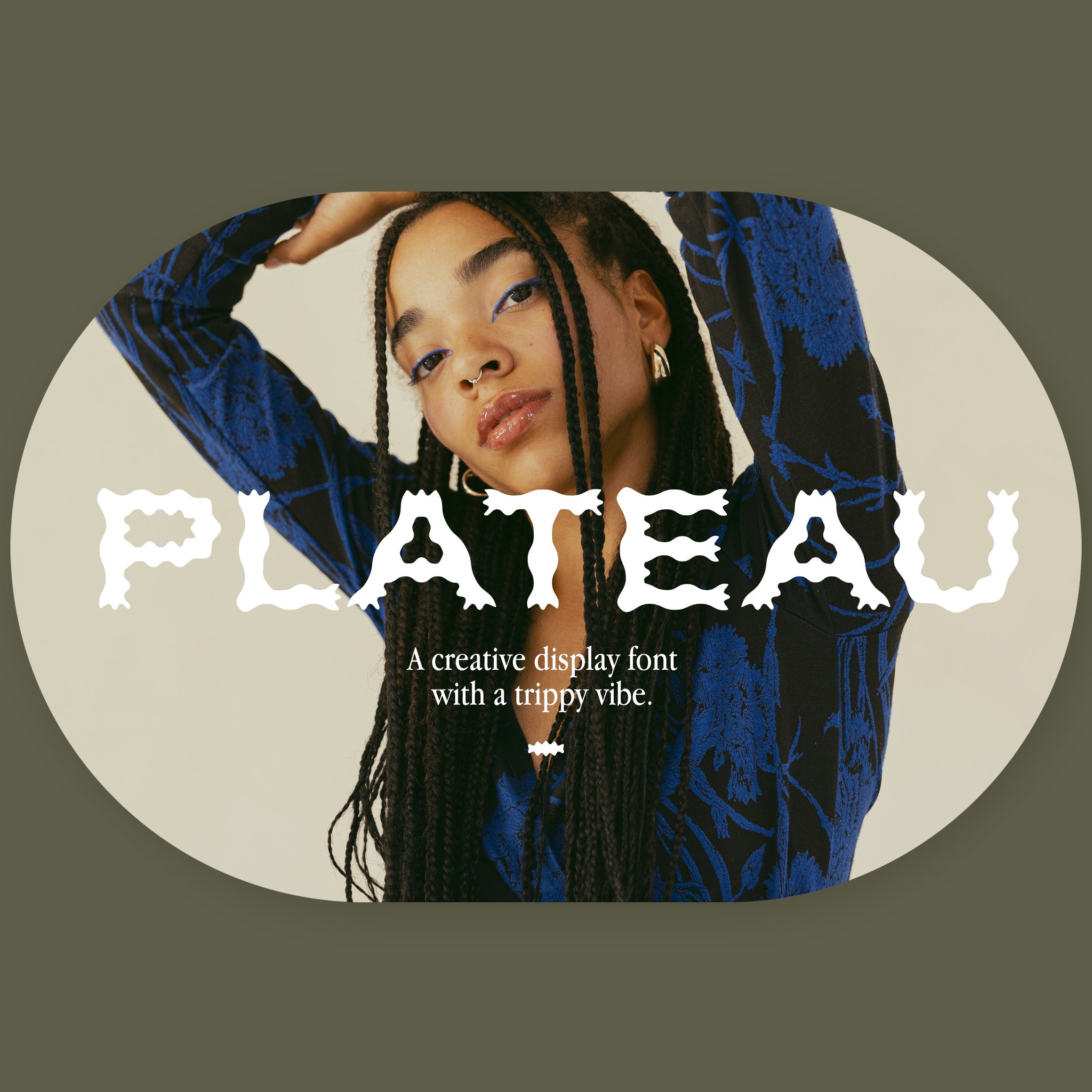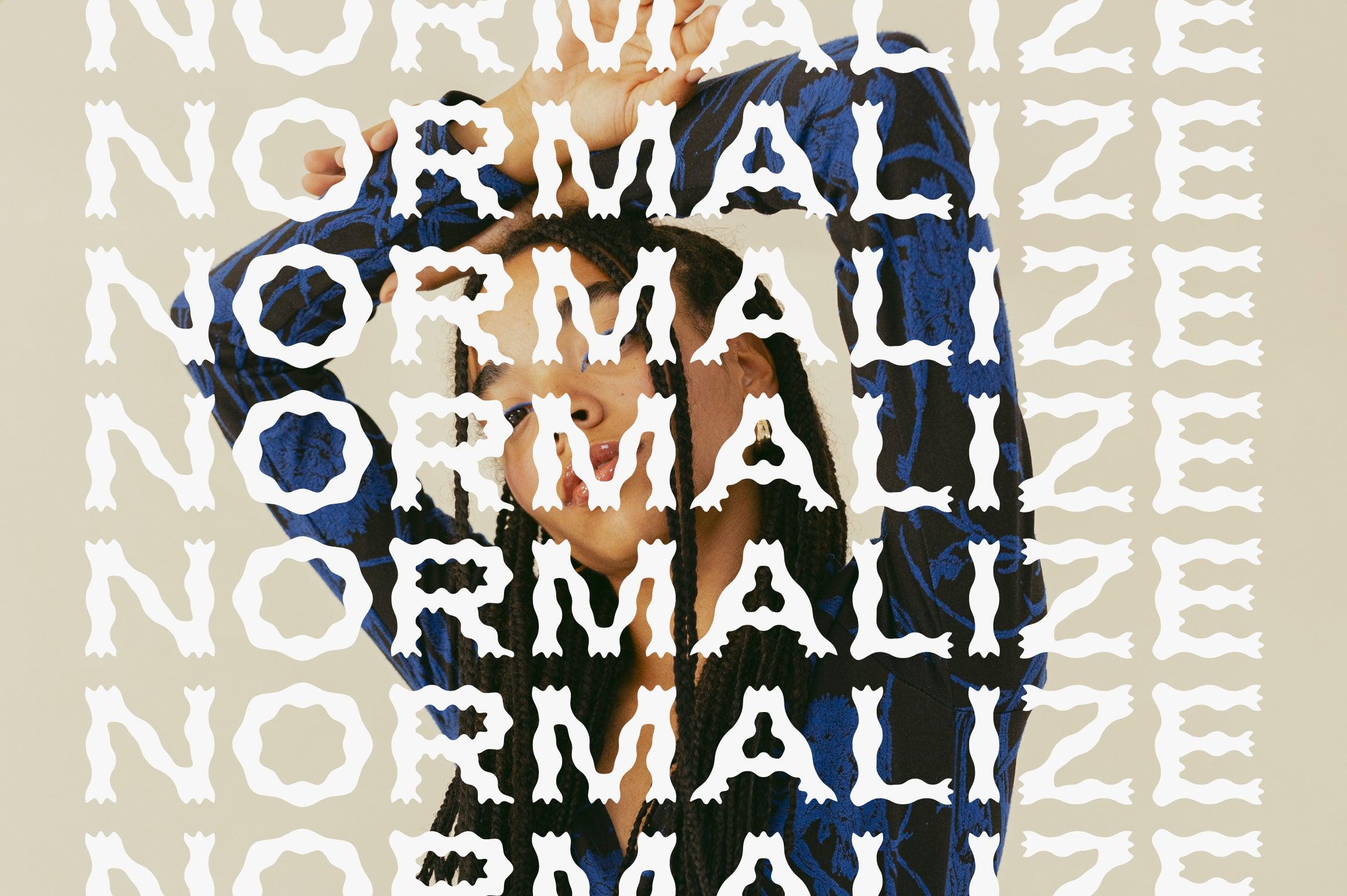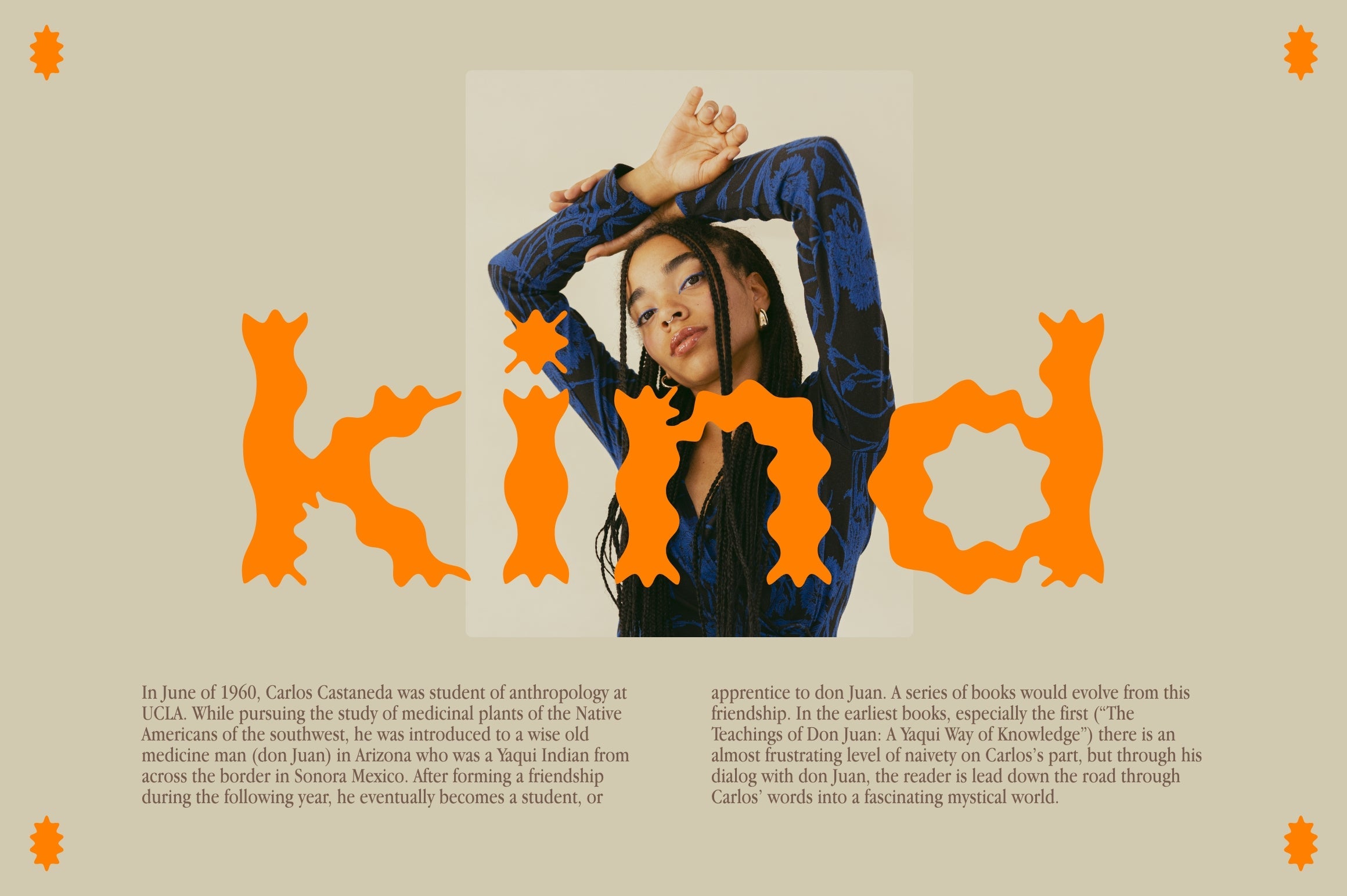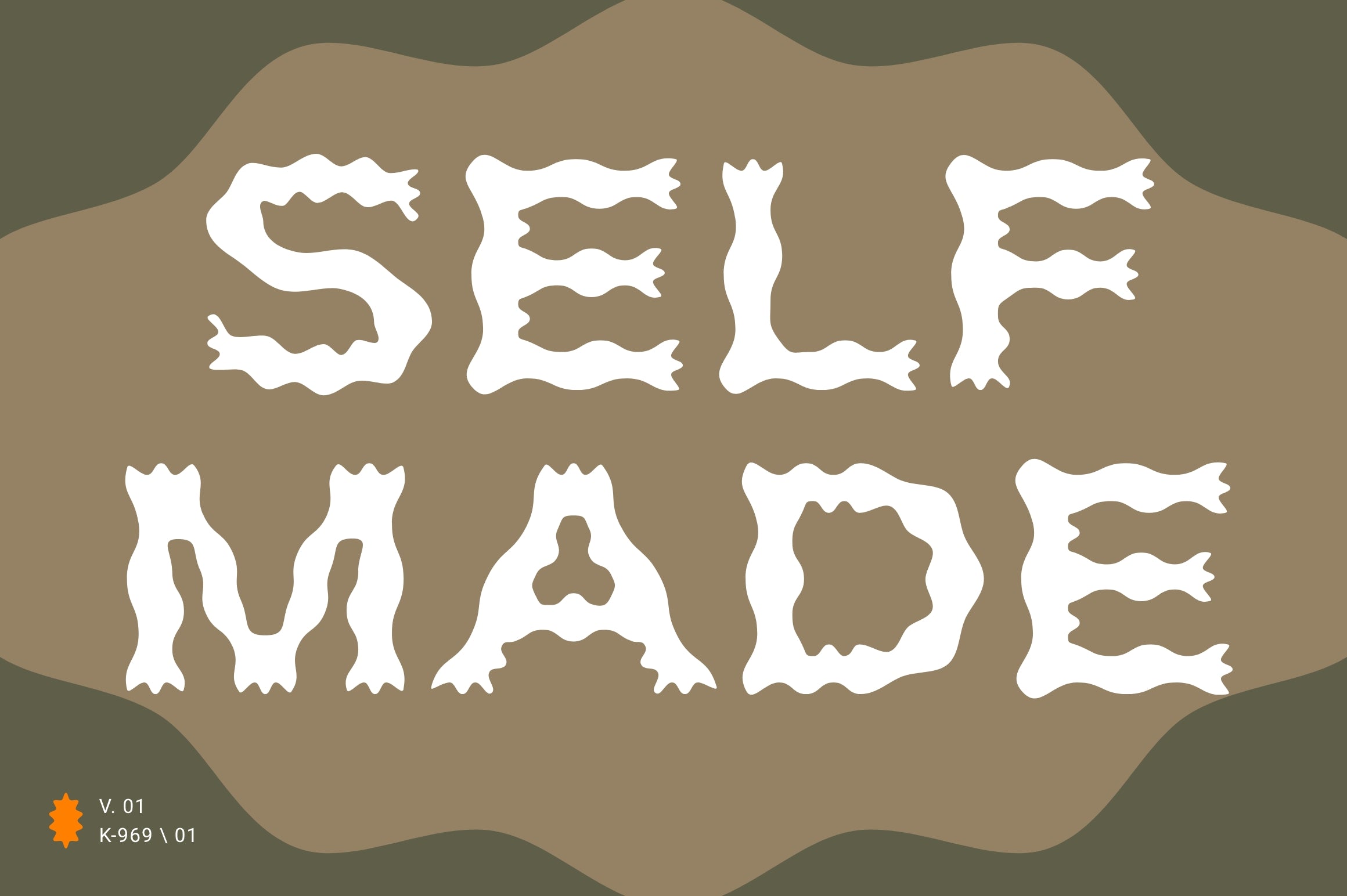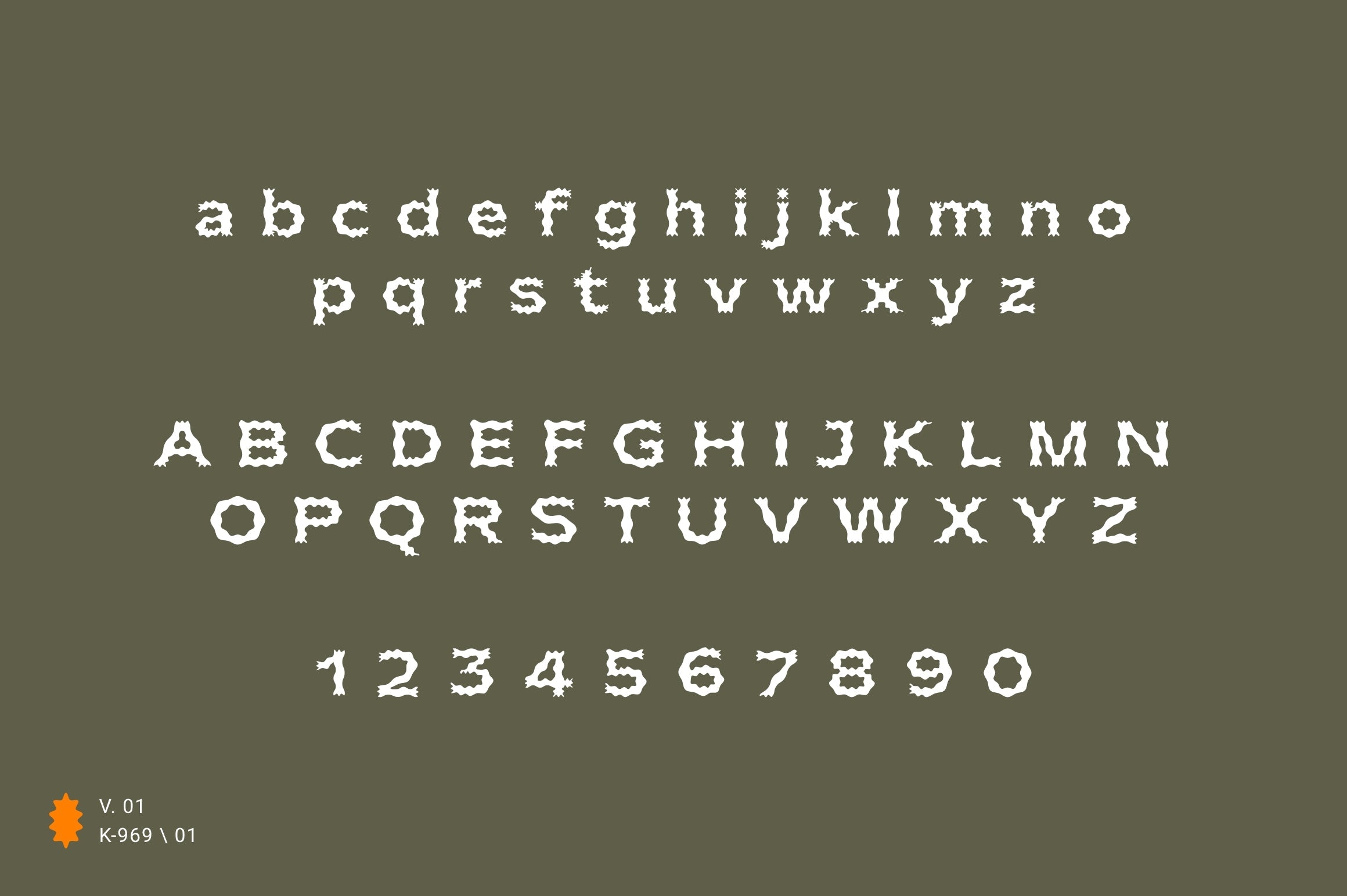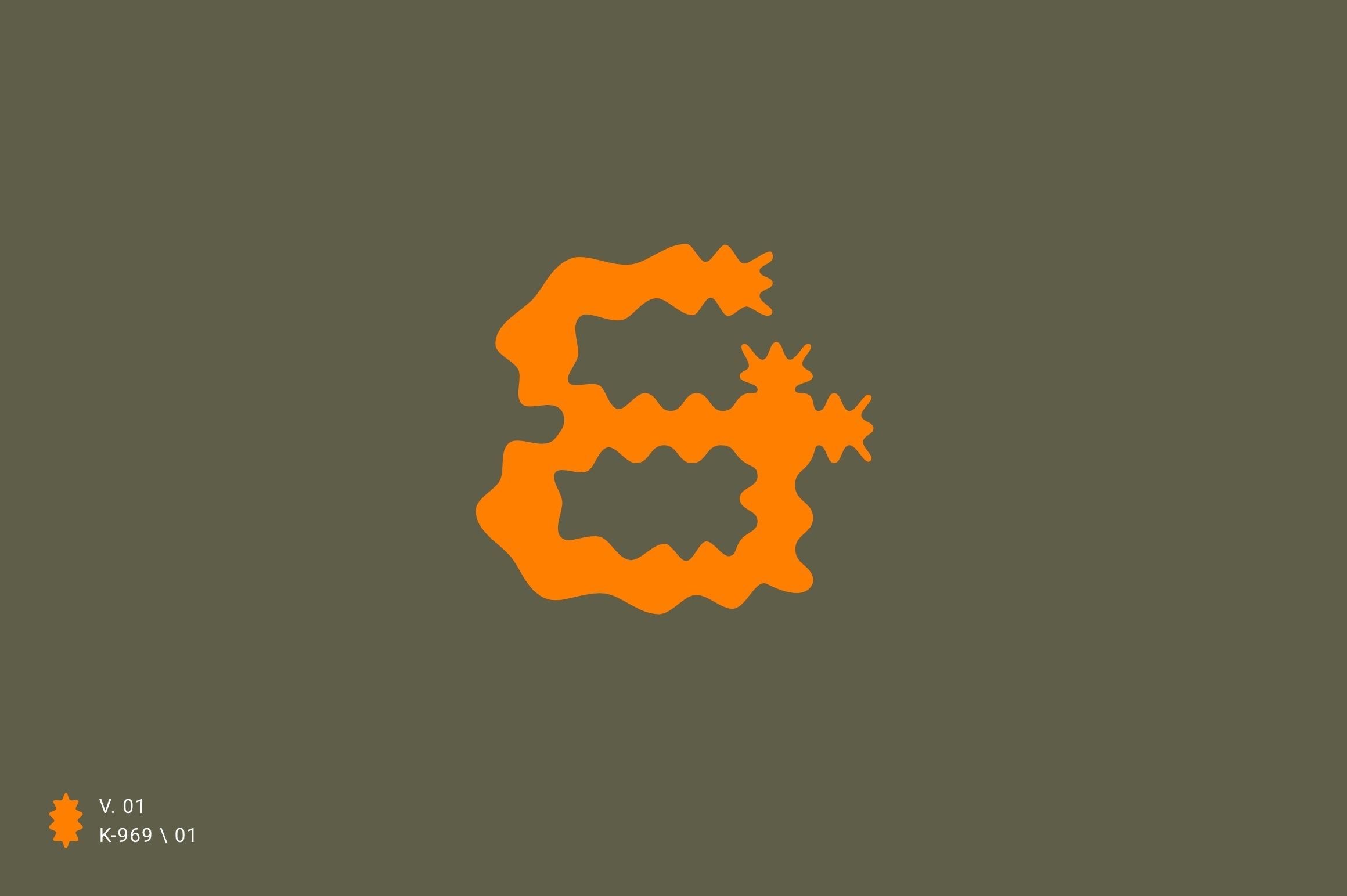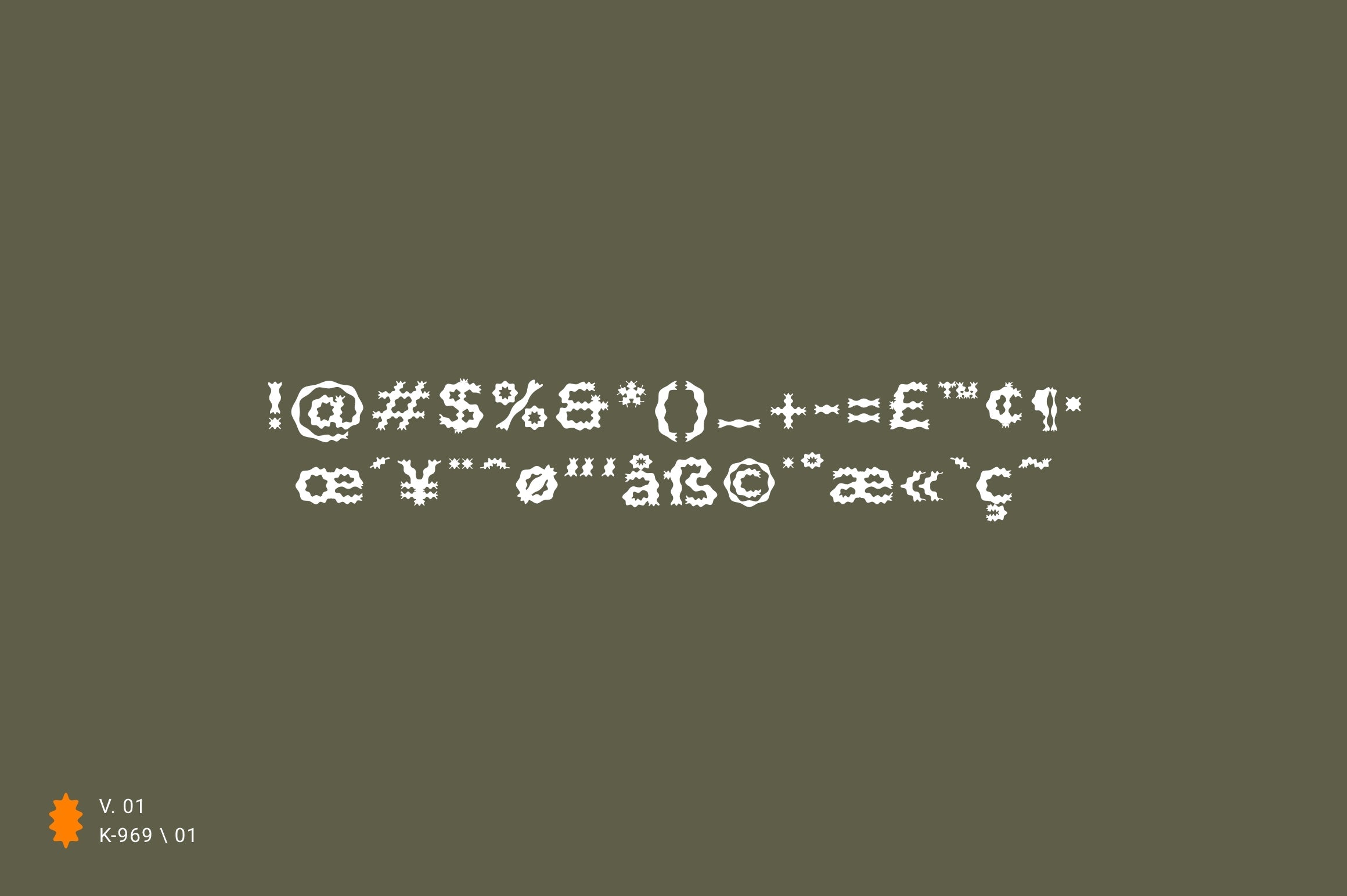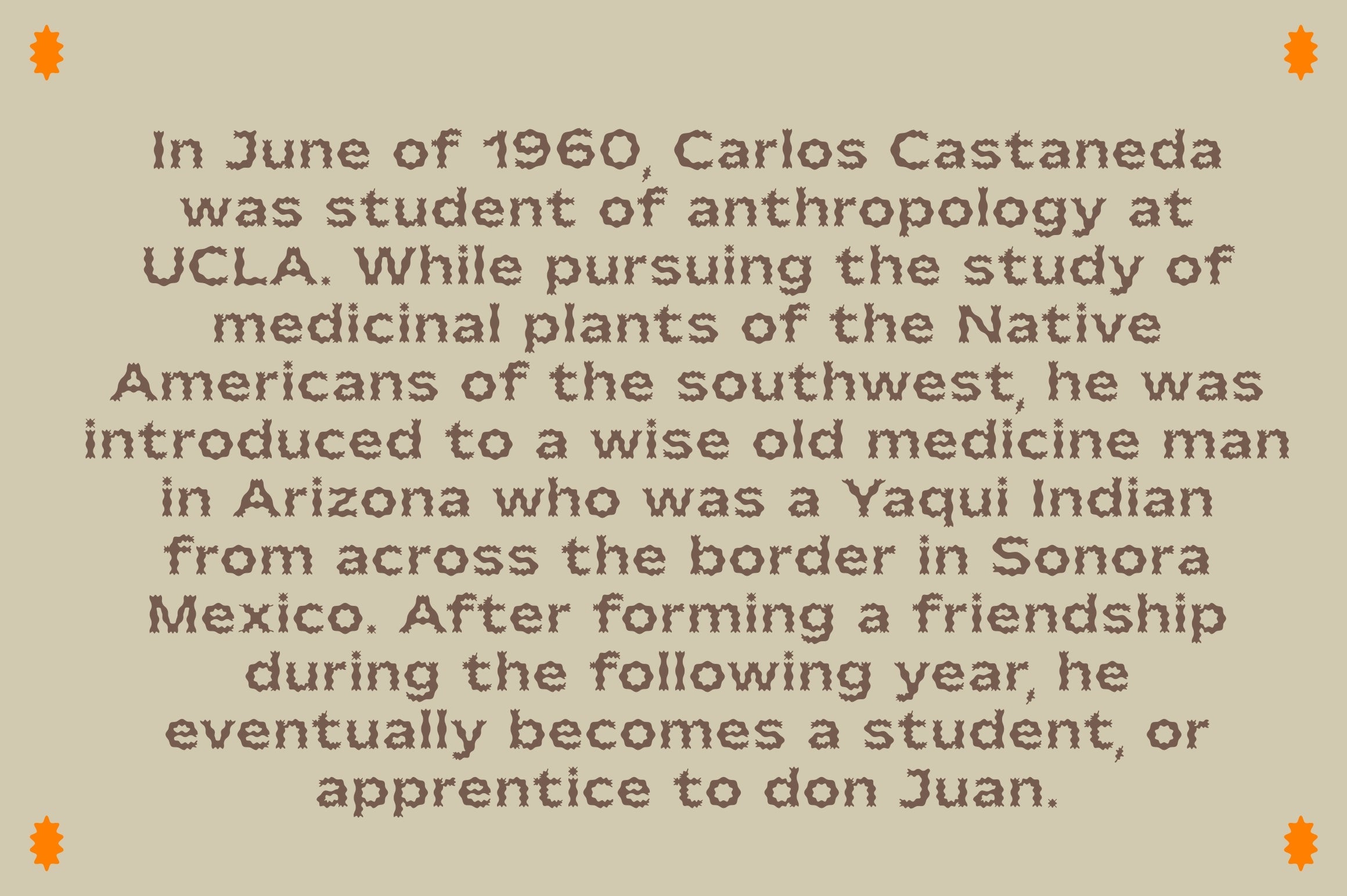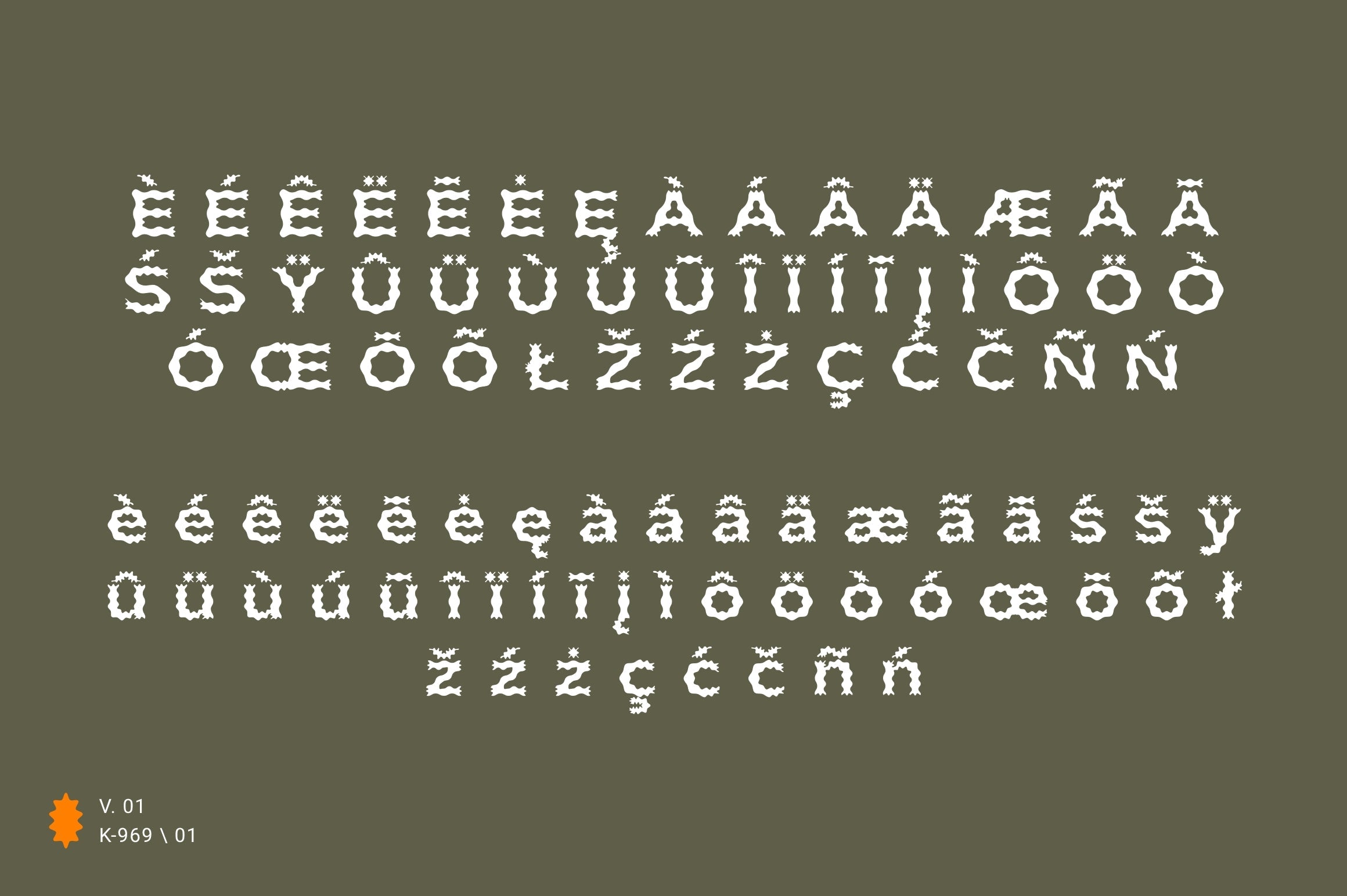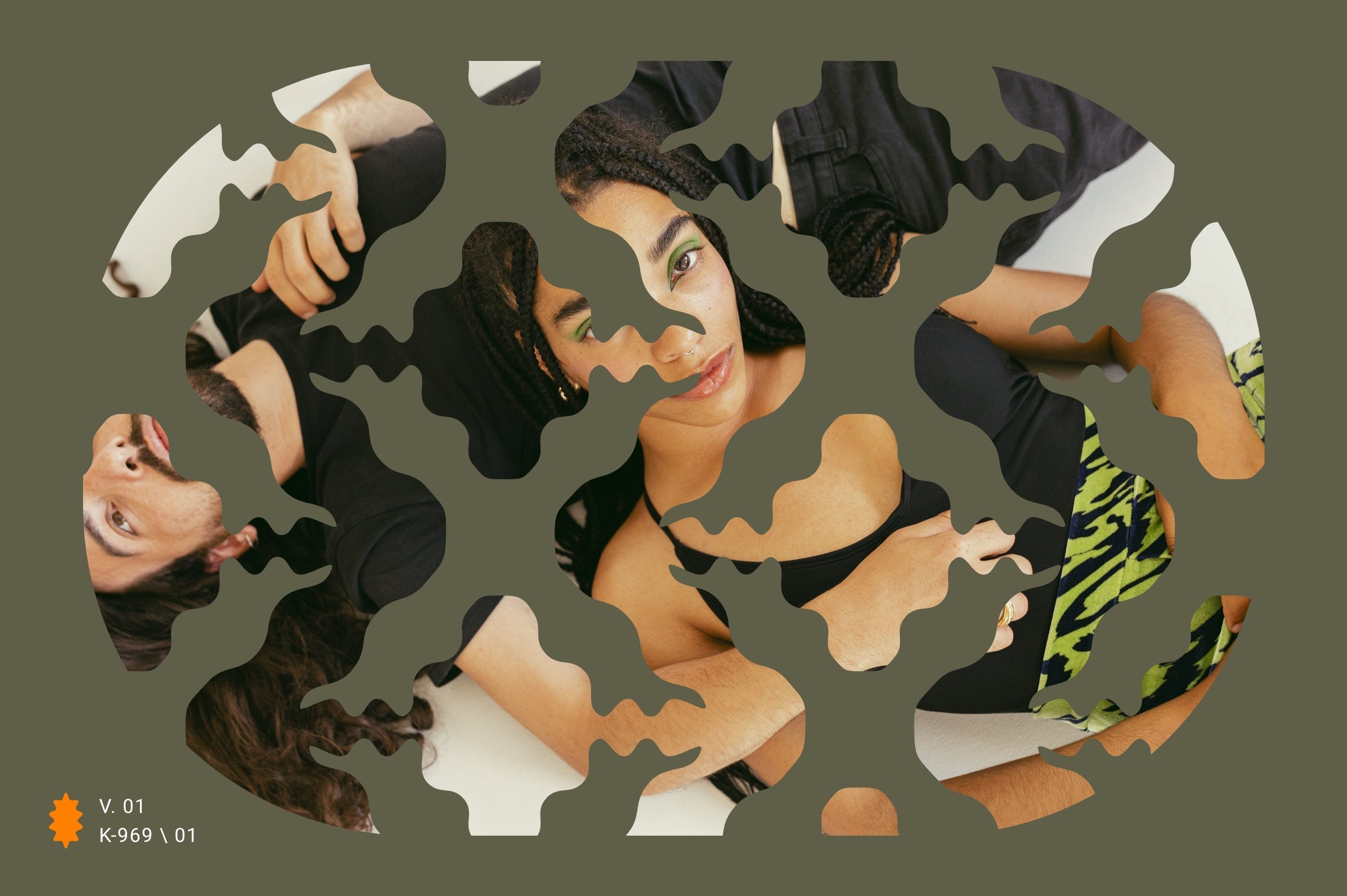
Plateau Font
Plateau Font is a bold and legible typeface featuring intricate decorative elements and swirling lines. It is available in multiple formats (.otf, .ttf, .woff, .woff2) and is suitable for a variety of design projects due to its unique and memorable style.
Ideal for adventurous and vibrant graphic design projects. Perfect for branding, packaging, and editorial design, ensuring a unique and memorable visual impact.